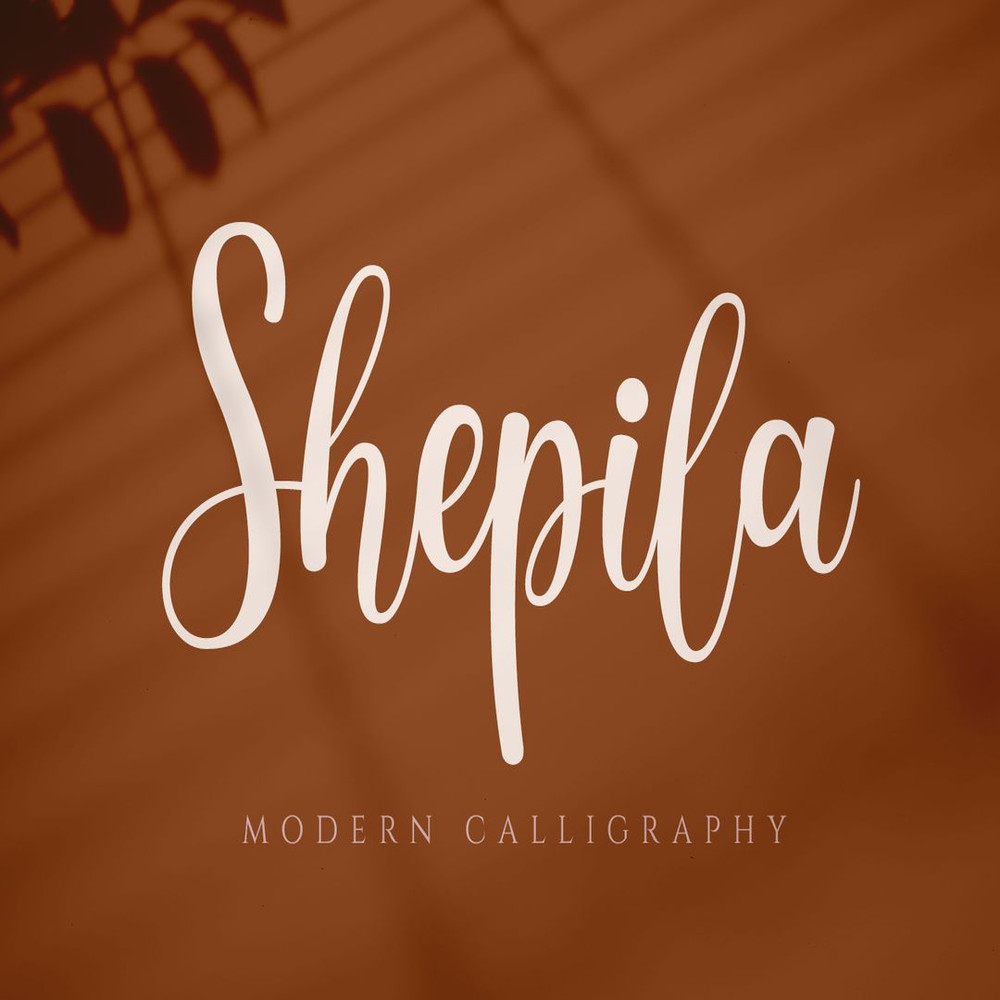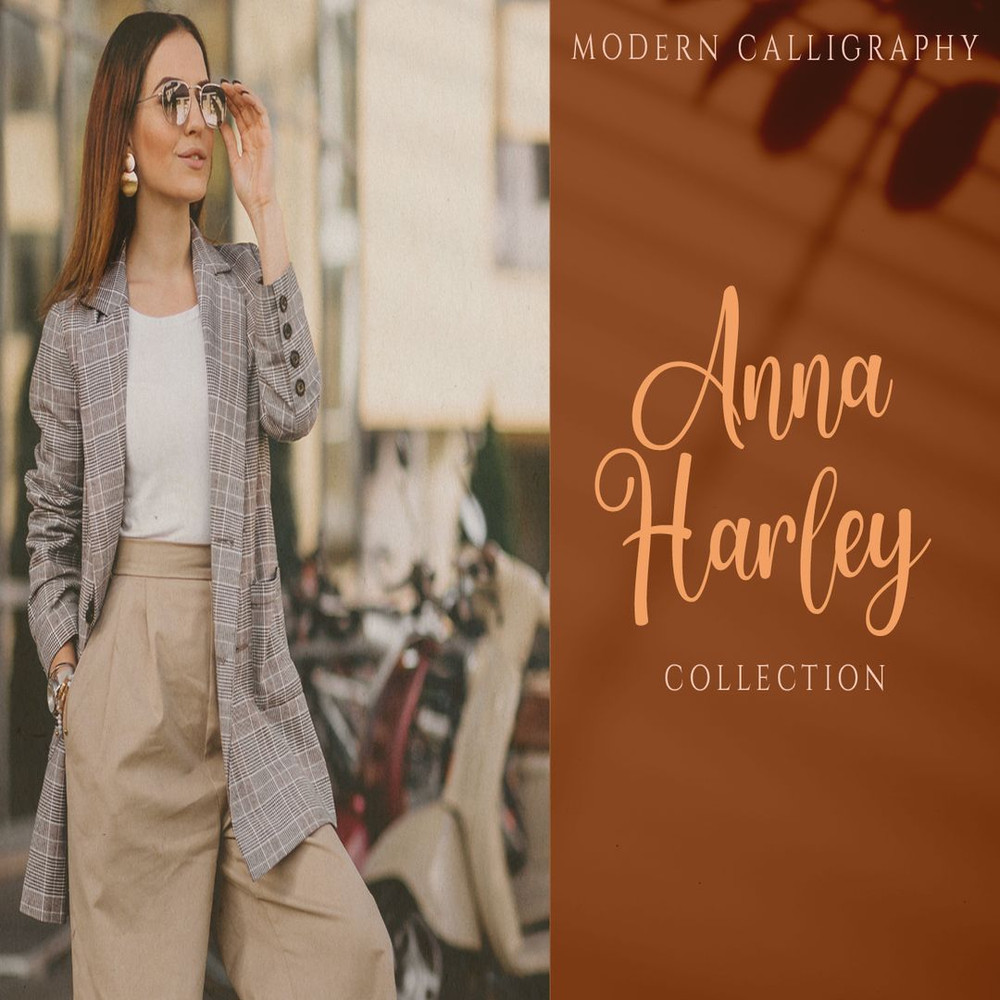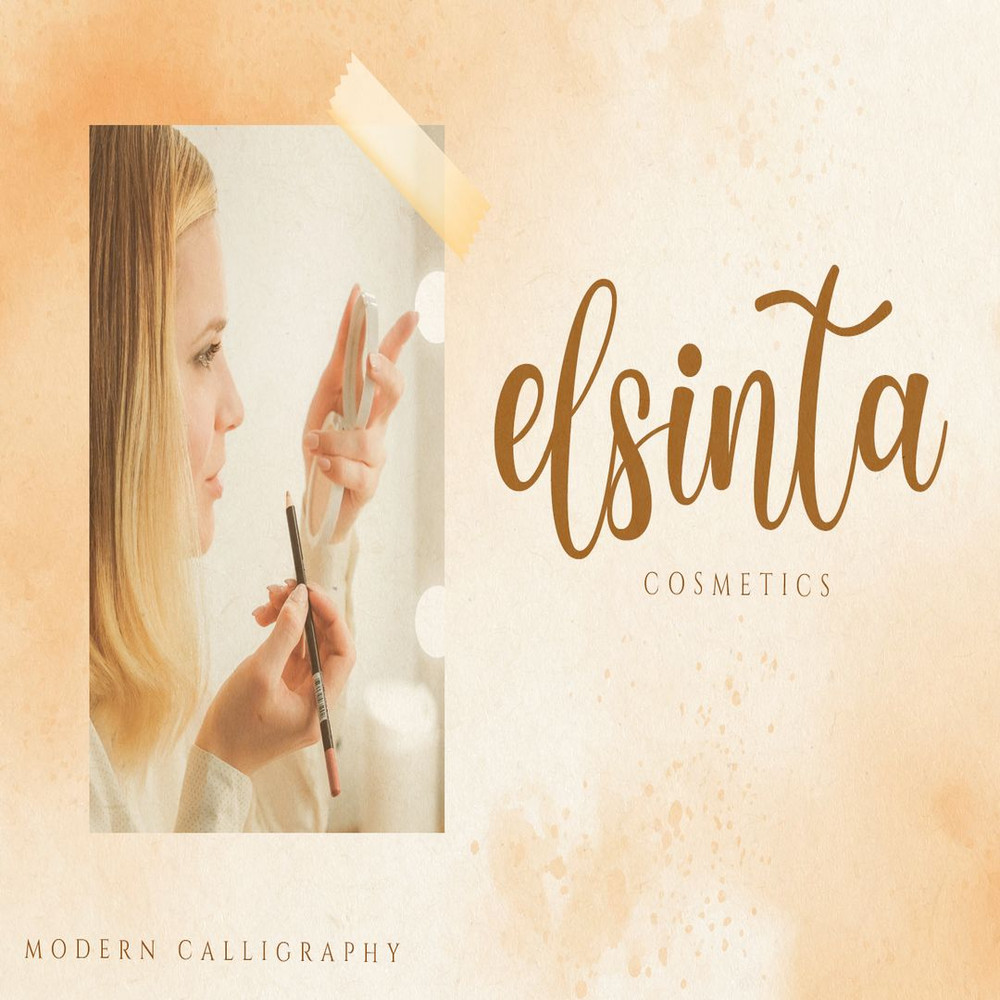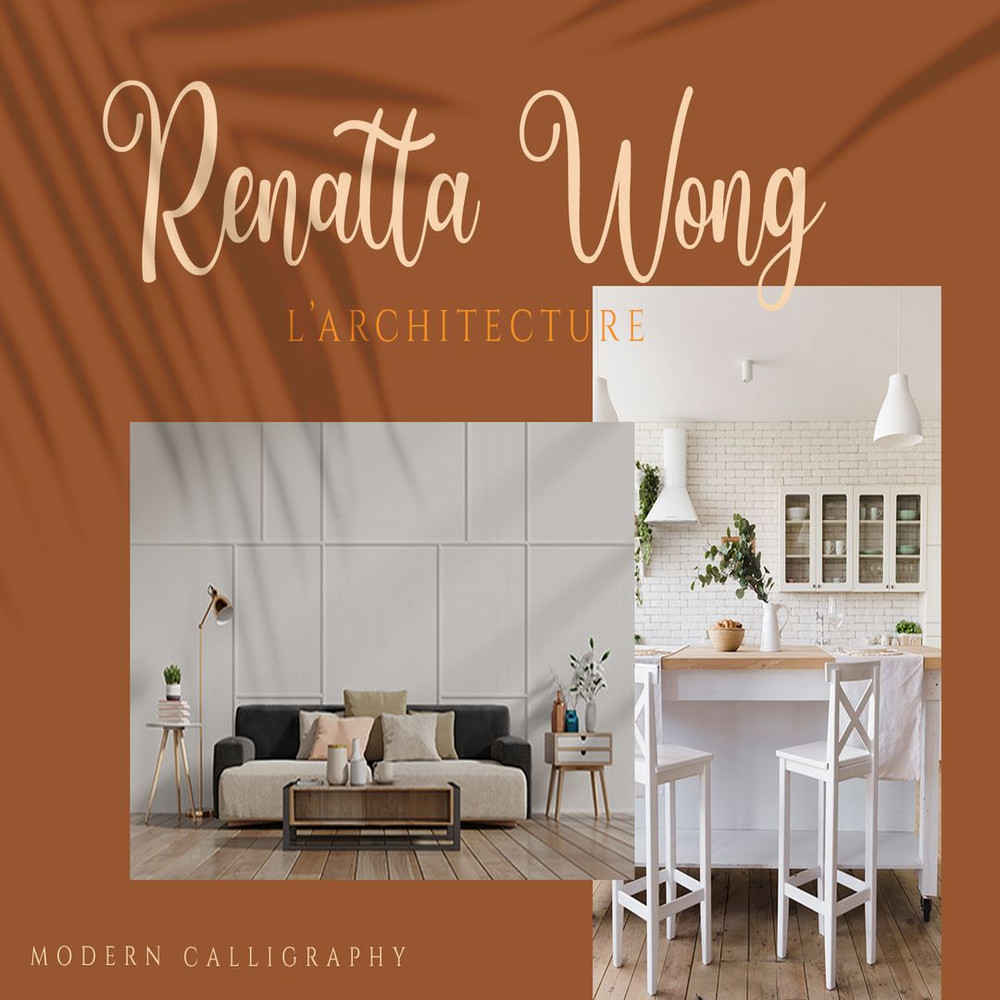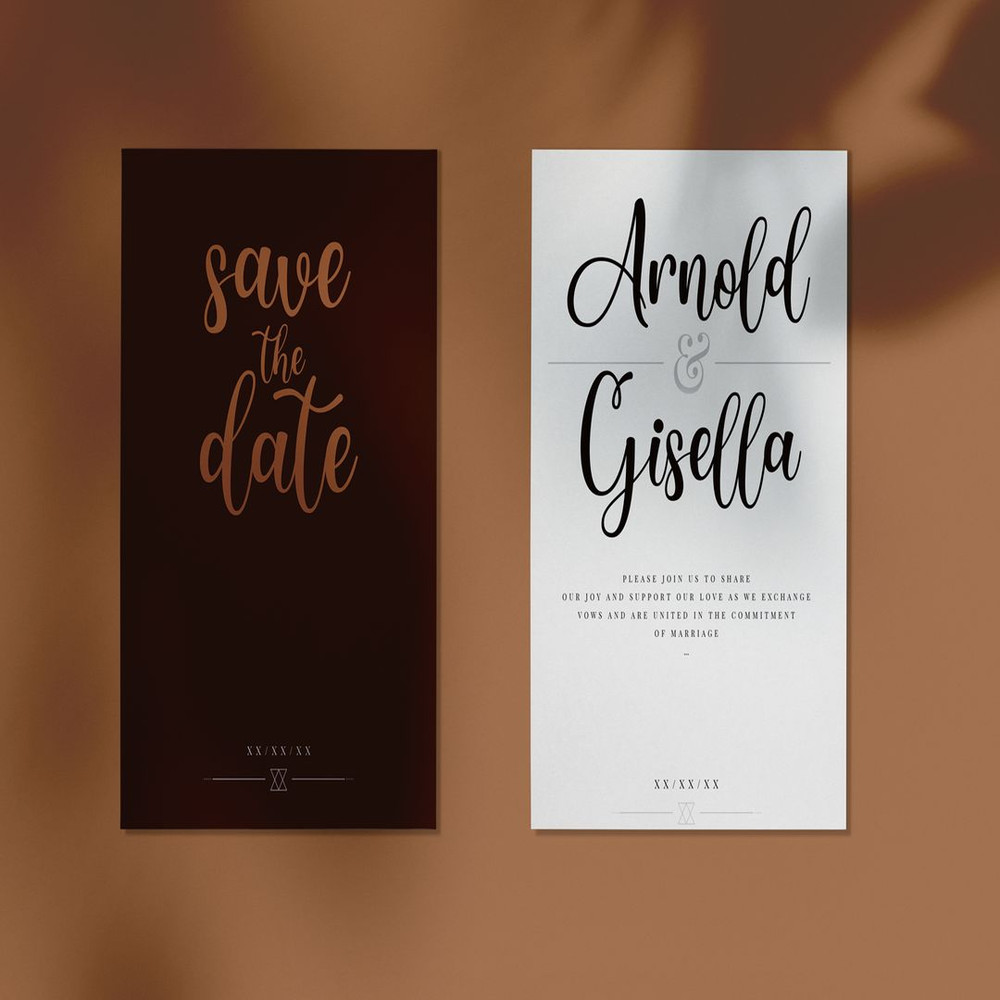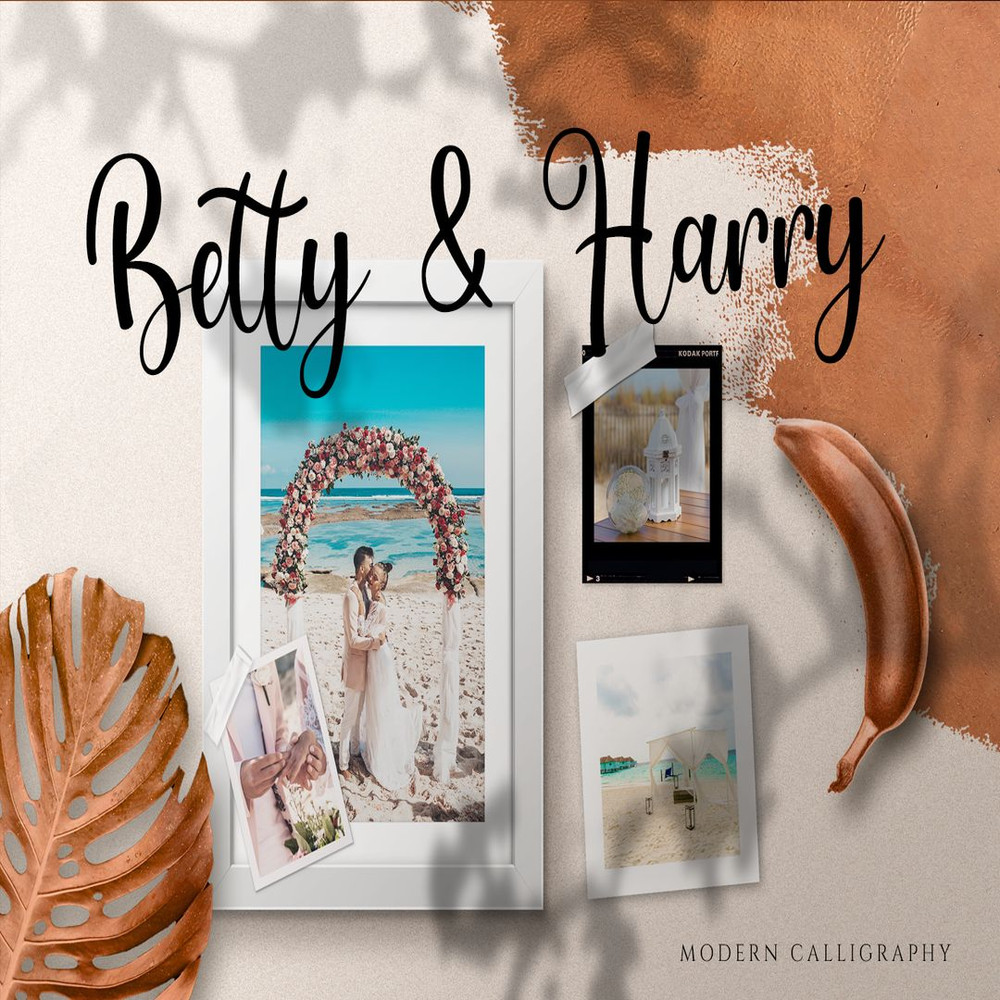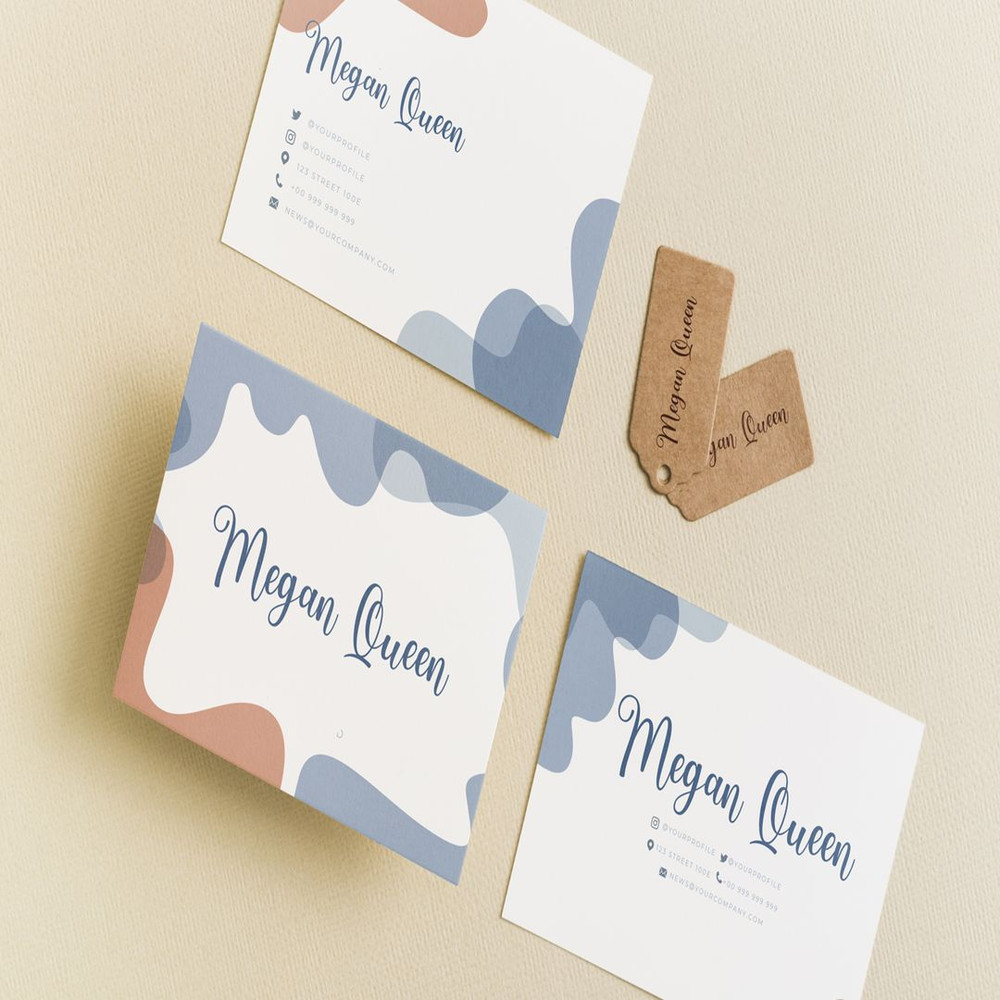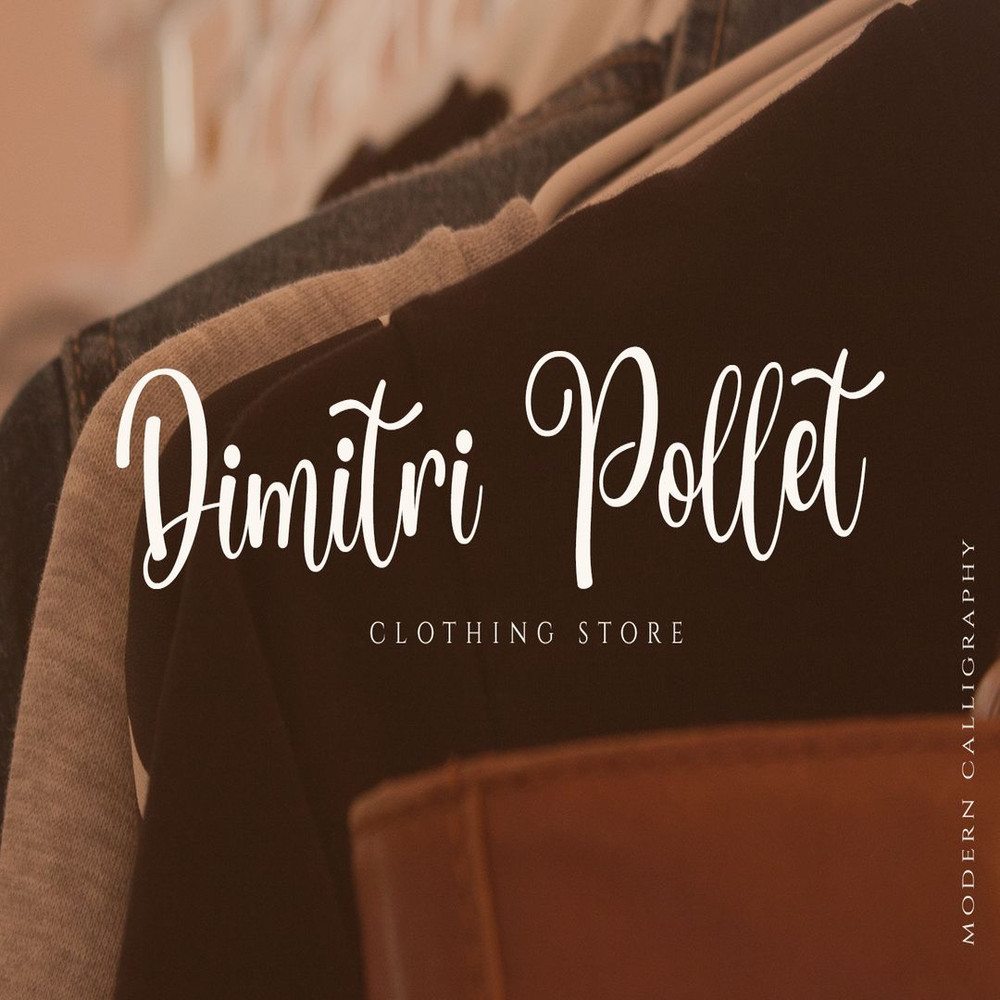
Shepila – Pretty Script Font Trending Fonts - Digital Font
Shepila is a beautiful modern and elegant calligraphy script font. Bravely will work perfectly for wedding, fashion, brands, blogs, boutiques or any business that wants to appear upscale and pretty.
Shepila – Pretty Script Font Trending Fonts - Digital Font
Shepila is a beautiful modern and elegant calligraphy script font. Bravely will work perfectly for wedding, fashion, brands, blogs, boutiques or any business that wants to appear upscale and pretty.